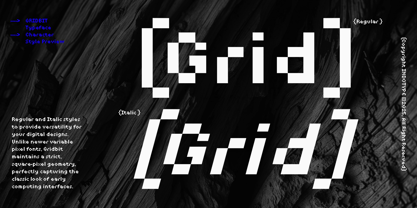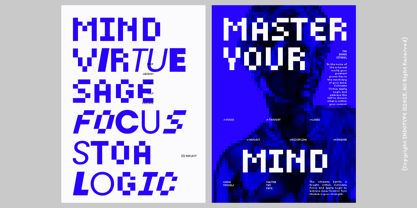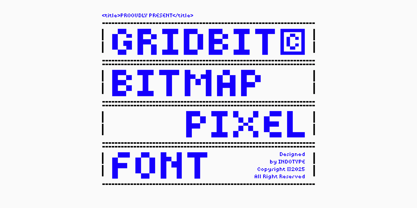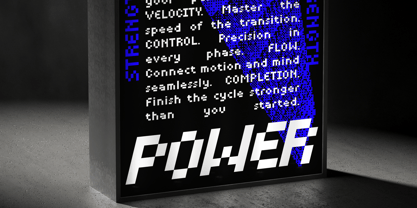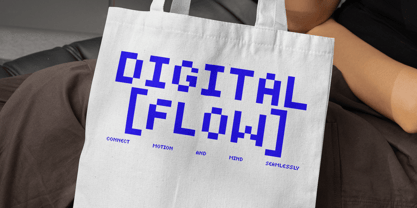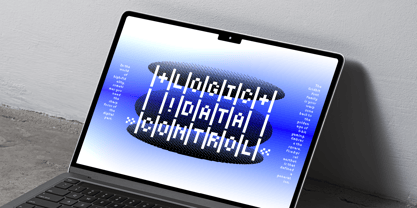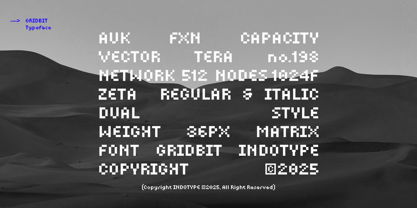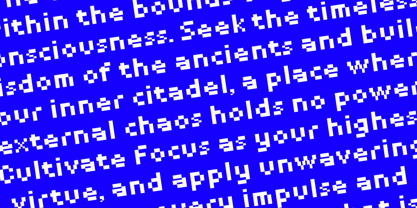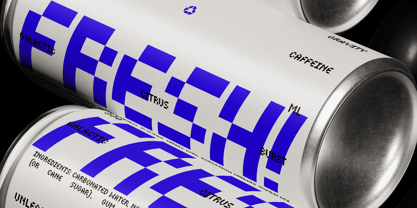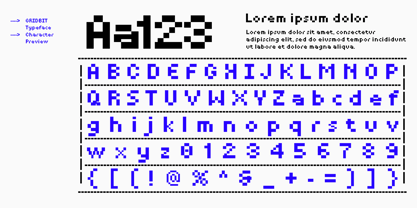
IT Gridbit
por Indotype
La familia tipográfica IT Gridbit fue diseñada por Dede Kurniawan y publicada por Indotype. IT Gridbit contiene 2 estilos y opciones de paquete familiar. Más información sobre esta familia
Gridbit is a meticulously crafted bitmap pixel font that transports you back to the golden age of digital design. Built on a precise grid system, every character is a love letter to the 8-bit and 16-bit eras, evoking the raw charm of early video games, classic computer interfaces, and the dawn of the web. Its chunky, aliased edges and limited resolution are not flaws—they are its defining features, delivering an authentic retro aesthetic that cannot be replicated with modern anti-aliasing. This font is the ultimate tool for designers seeking to inject nostalgia, digital grit, and a lo-fi personality into their projects. Perfect for game development (especially retro and indie titles), cyberpunk graphics, tech-themed branding, and any design that thrives on a digital punk or nostalgic vibe. Gridbit doesn’t just look retro; it feels authentic, offering a direct connection to the foundational visual language of the digital world. • Ideal for: Retro Game Development (UI, Dialogue), Cyberpunk Graphics, Tech & Coding Branding, Digital Art, Lo-Fi Music Visuals, Nostalgic Web Design. • Classification: Bitmap, Pixel, Monospaced, Display, Retro. • Attributes: Nostalgic, Digital, Raw, Authentic, Geeky, Playful, Retro-Futuristic.